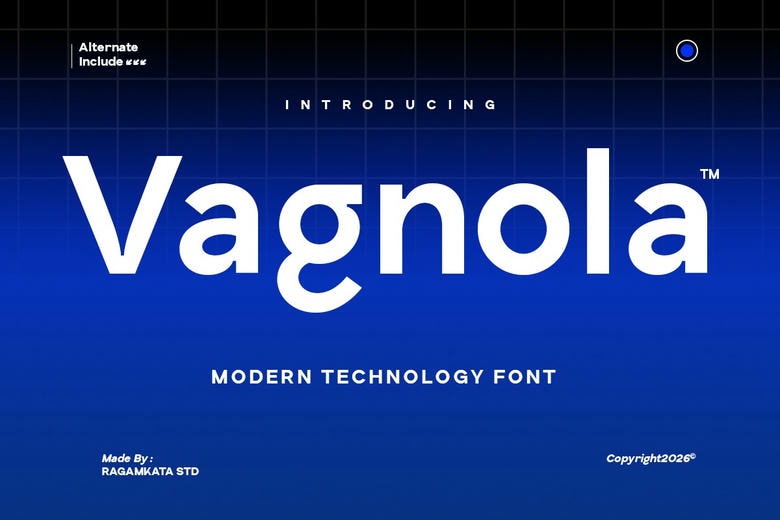
Vagnola Font
Vagnola is a contemporary technology font that is meant to provide a clean, futuristic, and high-tech look. Its geometric framework, sharp edges, and accurate proportions are a sign of innovation, digital vitality, and avant-garde looks. Vagnola is designed to suit designers wishing to make bold, powerful and modern designs that convey instantly the element of technology and progress.
This is a Vagnala typeface that is characterized by broad and open holes and geometric focus, and it reflects the 2026 trend of Typographic Maximalism. The Vagnola font is a clean, confident, and professional look, whether it is a high-performance application interface, a corporate identity of a global tech company, or a sleek site header, and your message gets heard loud and clear.
The Vagnola typeface family will have a collection of alternates to make your headlines have a customized, bespoke look. Combine it with high-tech photography or abstract 3D backgrounds to improve its futuristic DNA.
Ideal in tech branding, startup identities, retro games, futuristic posters, cyberspace, cyberpunk art, online products, user interface, user experience design, esports branding, software identity, modern websites, and technology showcase marketing. Its robust character and smooth lines would be suitable in designs that demand clarity, speed and forward looking personality.
Integrating austerity with futuristic modernity, Vagnola provides professional high-impact typing solution to contemporary designers. As a branding font, editorial layout, digital or motion graphics, this typeface will enable your projects to shine with a strong technological touch and high-quality modern design.
Vagnola Sans Serif Font